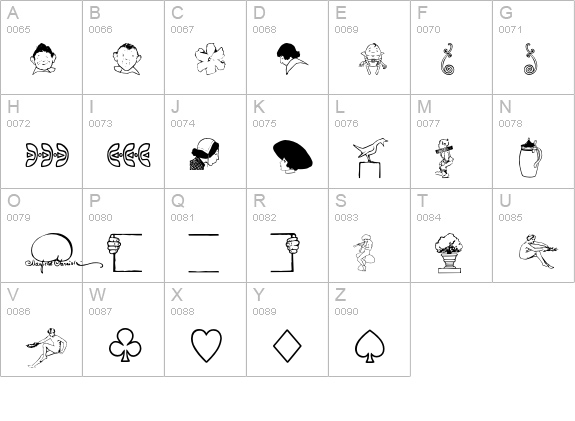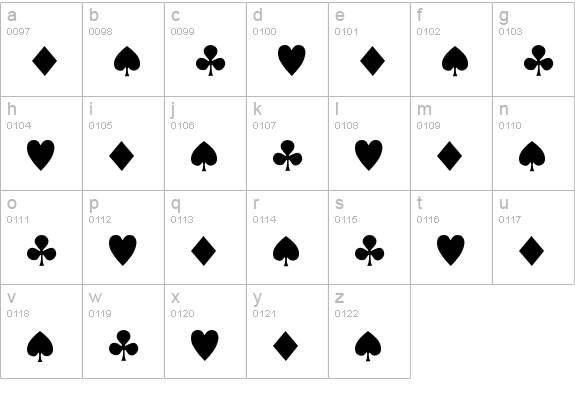
P22Parrish-Extras Font Details
P22Parrish-Extras is a captivating and versatile font that takes inspiration from the iconic art of Maxfield Parrish. With its intricate details and unique flourishes, this font is sure to add a touch of elegance and artistry to any project. Designed with a meticulous attention to detail, P22Parrish-Extras features a wide range of decorative elements, including ornate borders, stylish frames, and intricate vignettes. These extras add a delightful flair to your designs and allow for endless creative possibilities. Whether you are designing invitations, logos, posters, or any other project that requires a touch of sophistication, P22Parrish-Extras is the perfect choice. Its timeless appeal and refined aesthetic make it suitable for both classic and contemporary designs. One of the best aspects of P22Parrish-Extras is that it is free. Yes, you read that right! This extraordinary font is freely available to download at FontsMarket.com. By making it accessible to everyone, the creators of P22Parrish-Extras have ensured that designers of all levels can enjoy its beauty and use it to bring their visions to life. So why wait? Embrace the elegance and charm of P22Parrish-Extras and elevate your designs to new heights. Download this stunning font for free at FontsMarket.com and let your creativity soar.